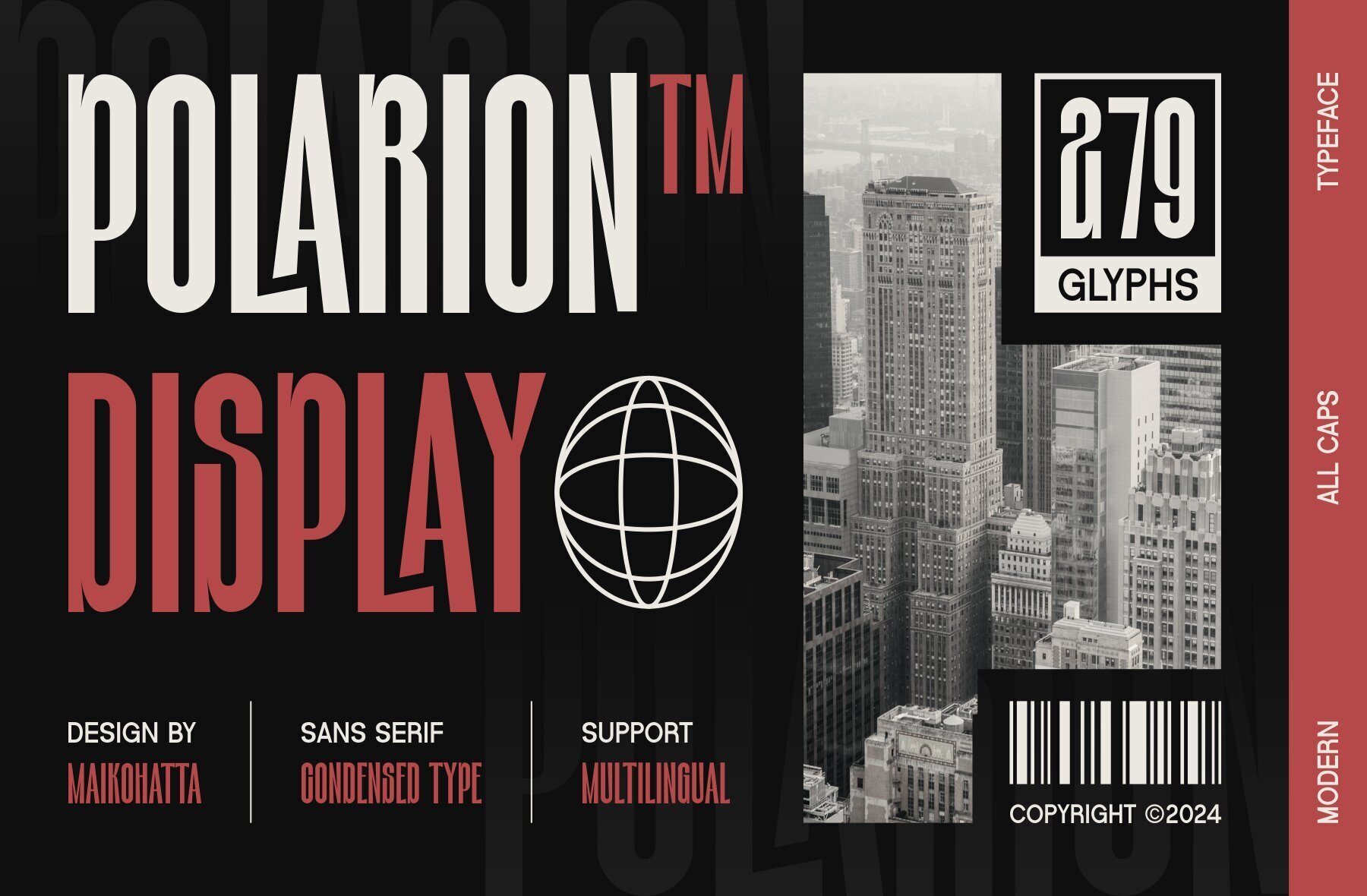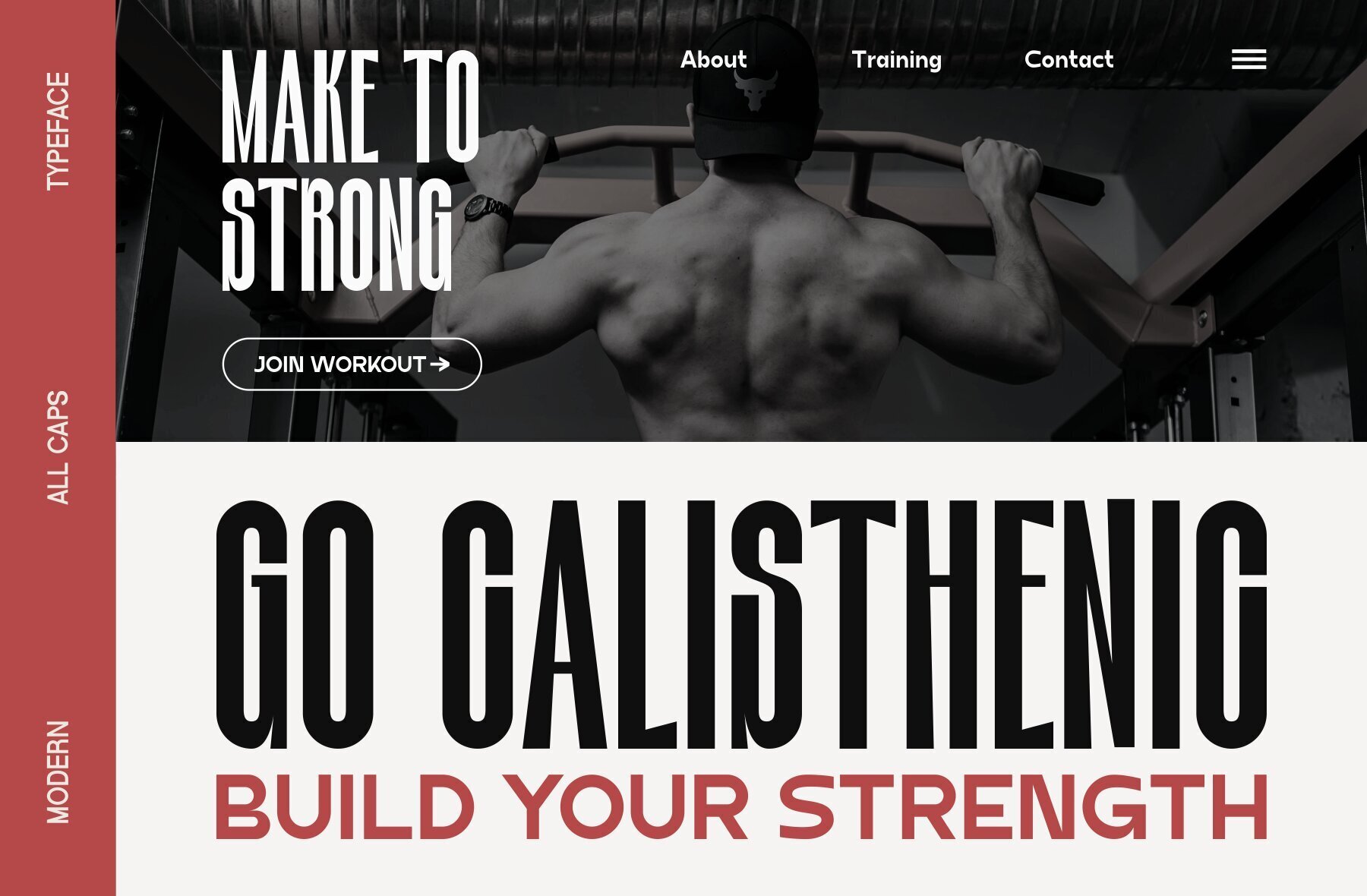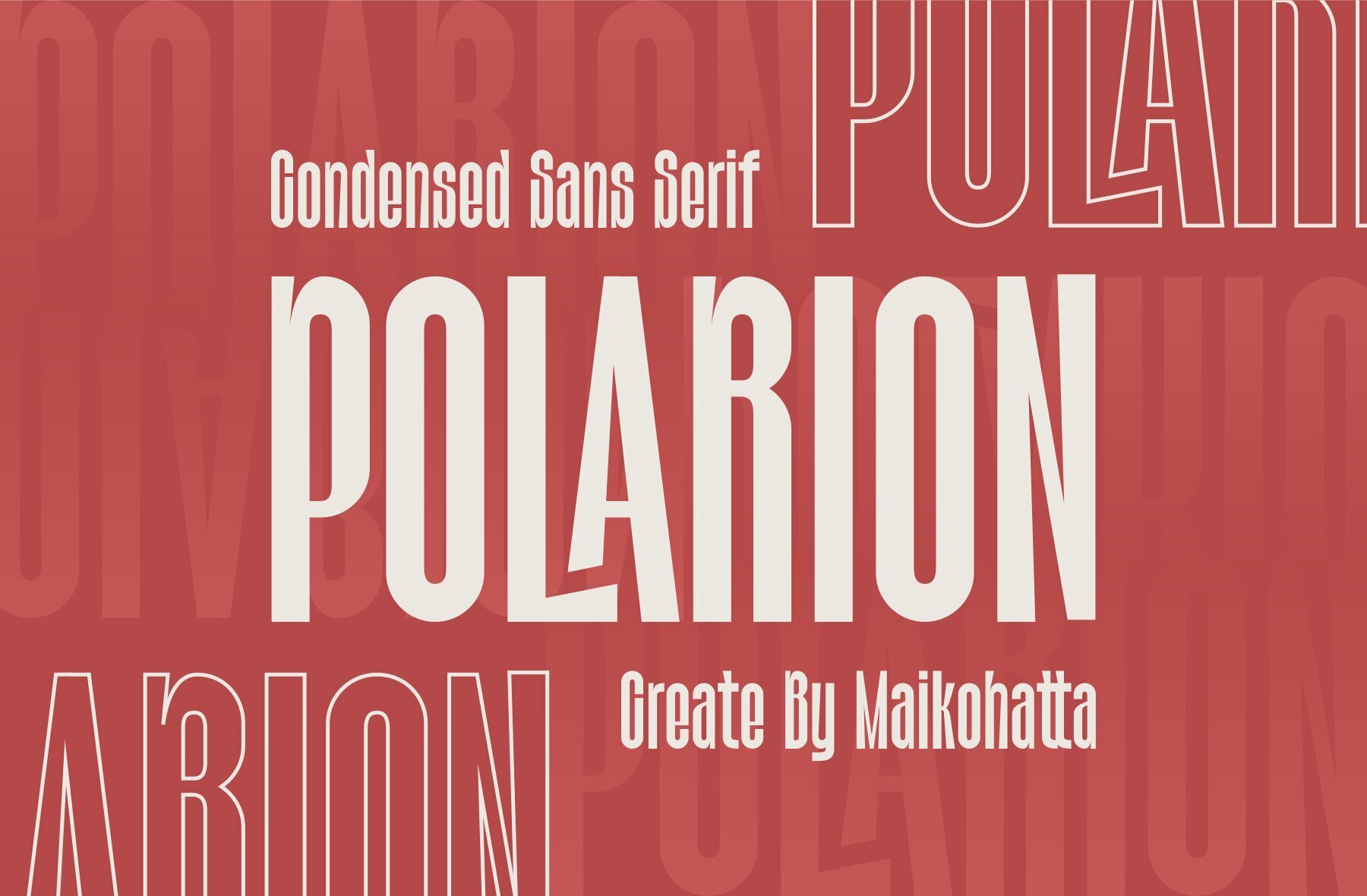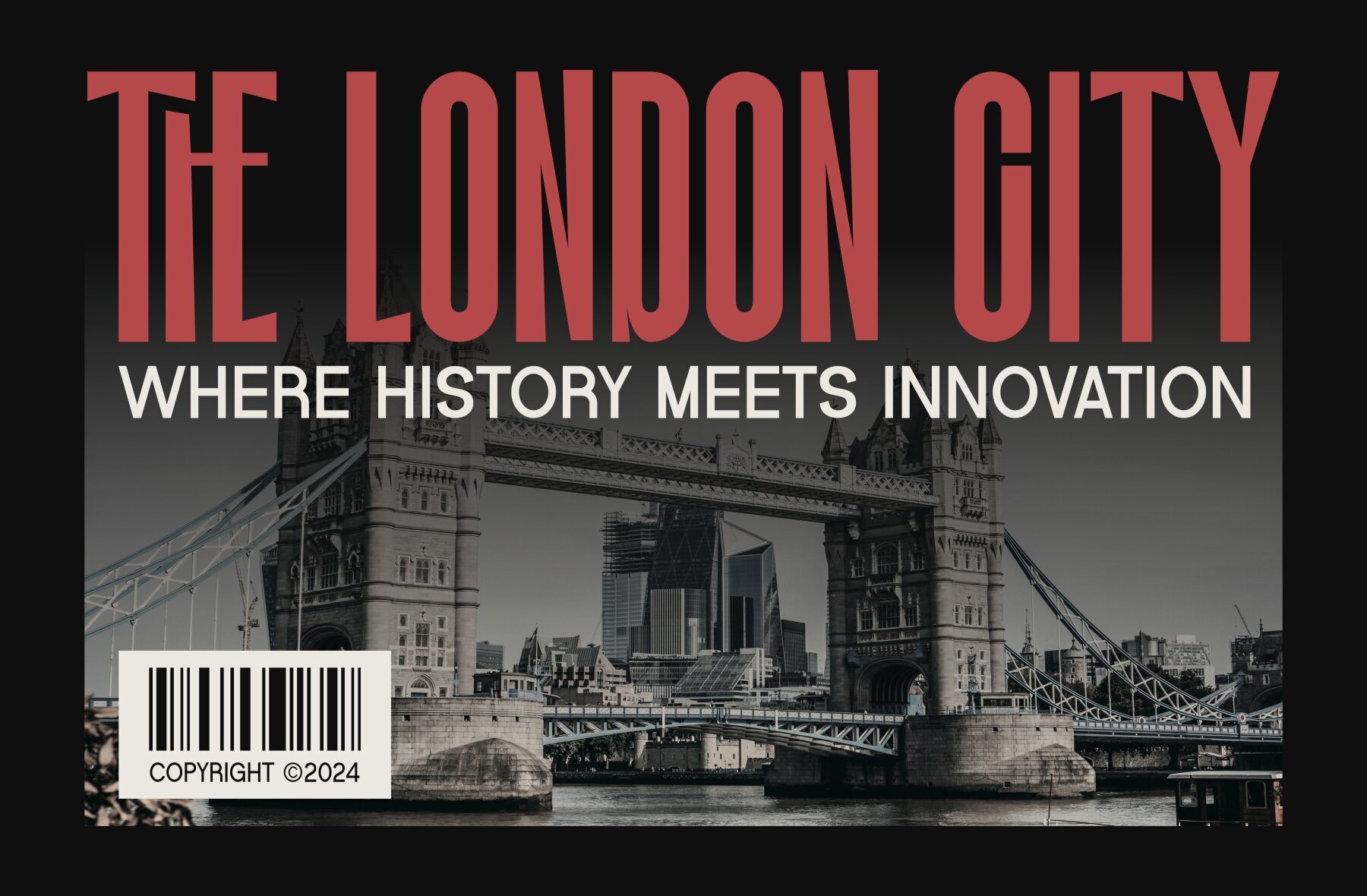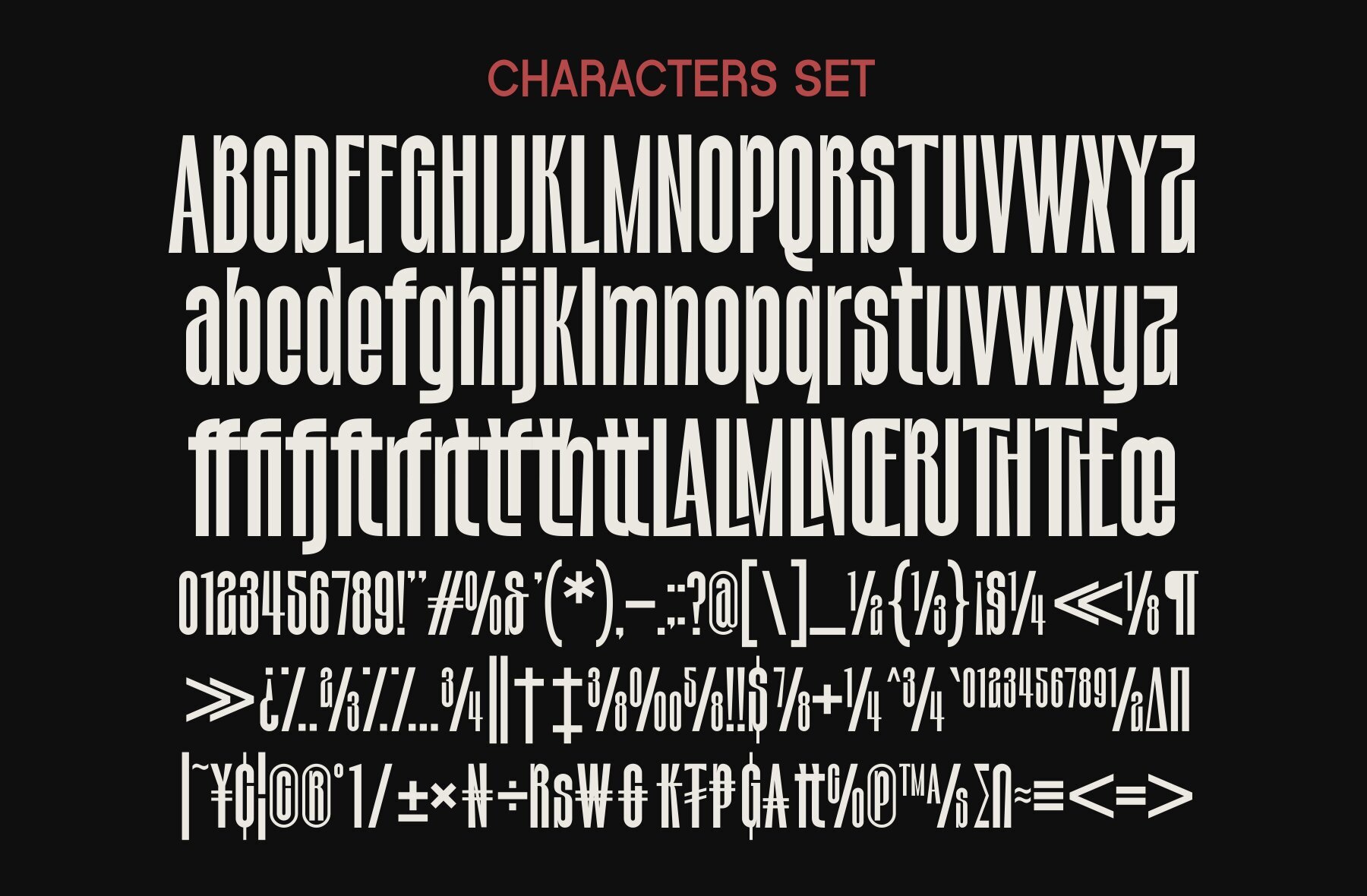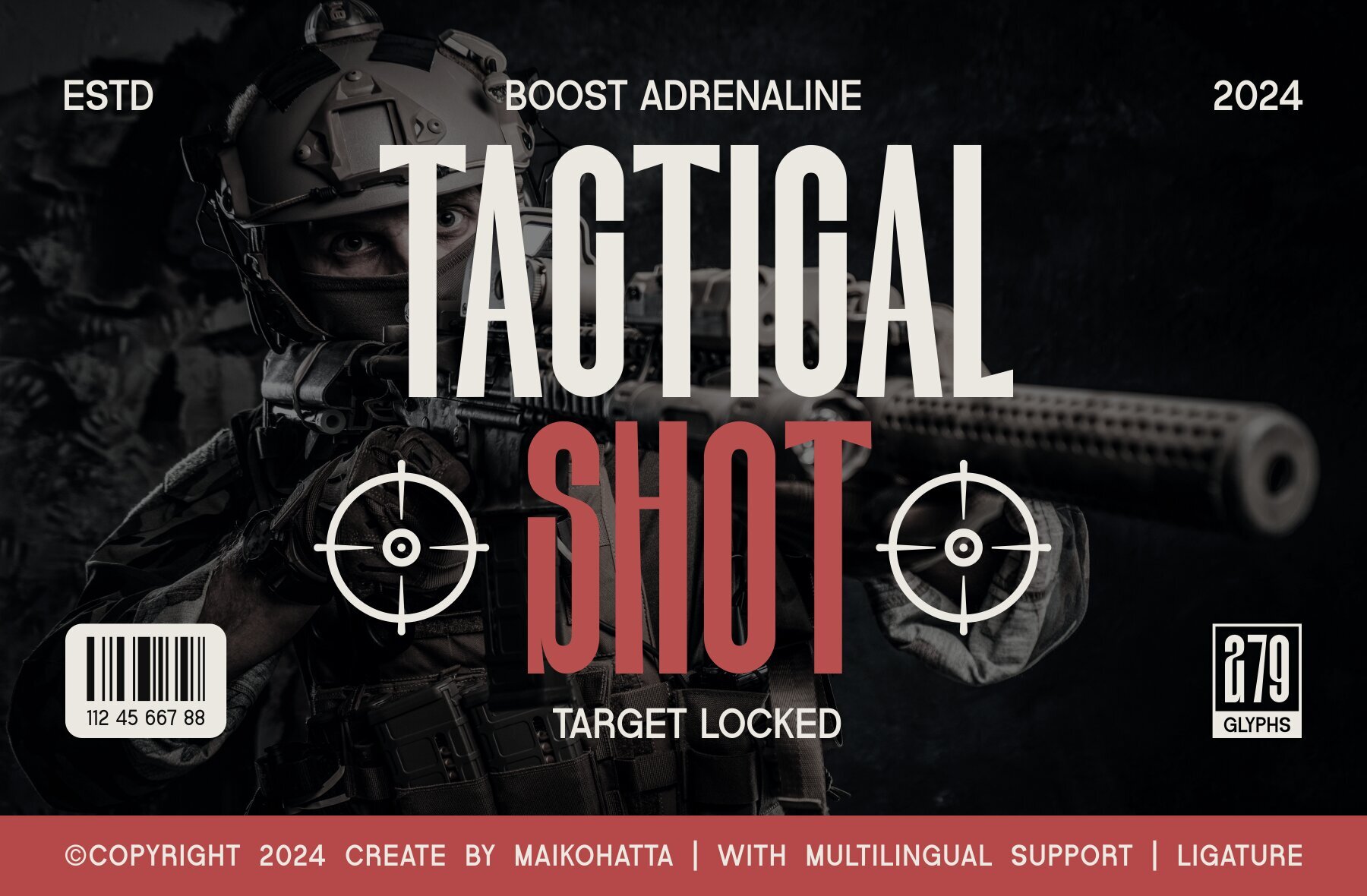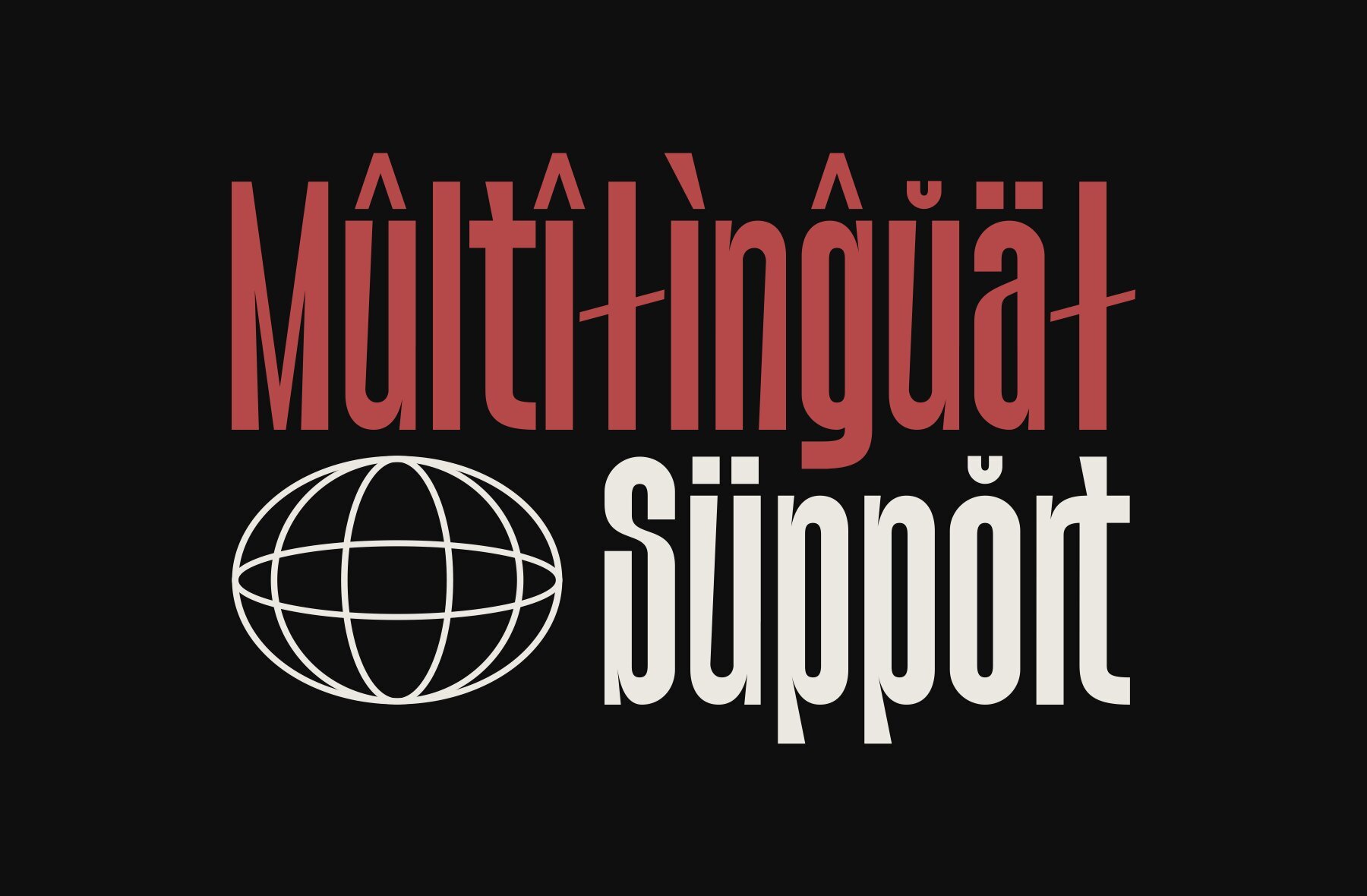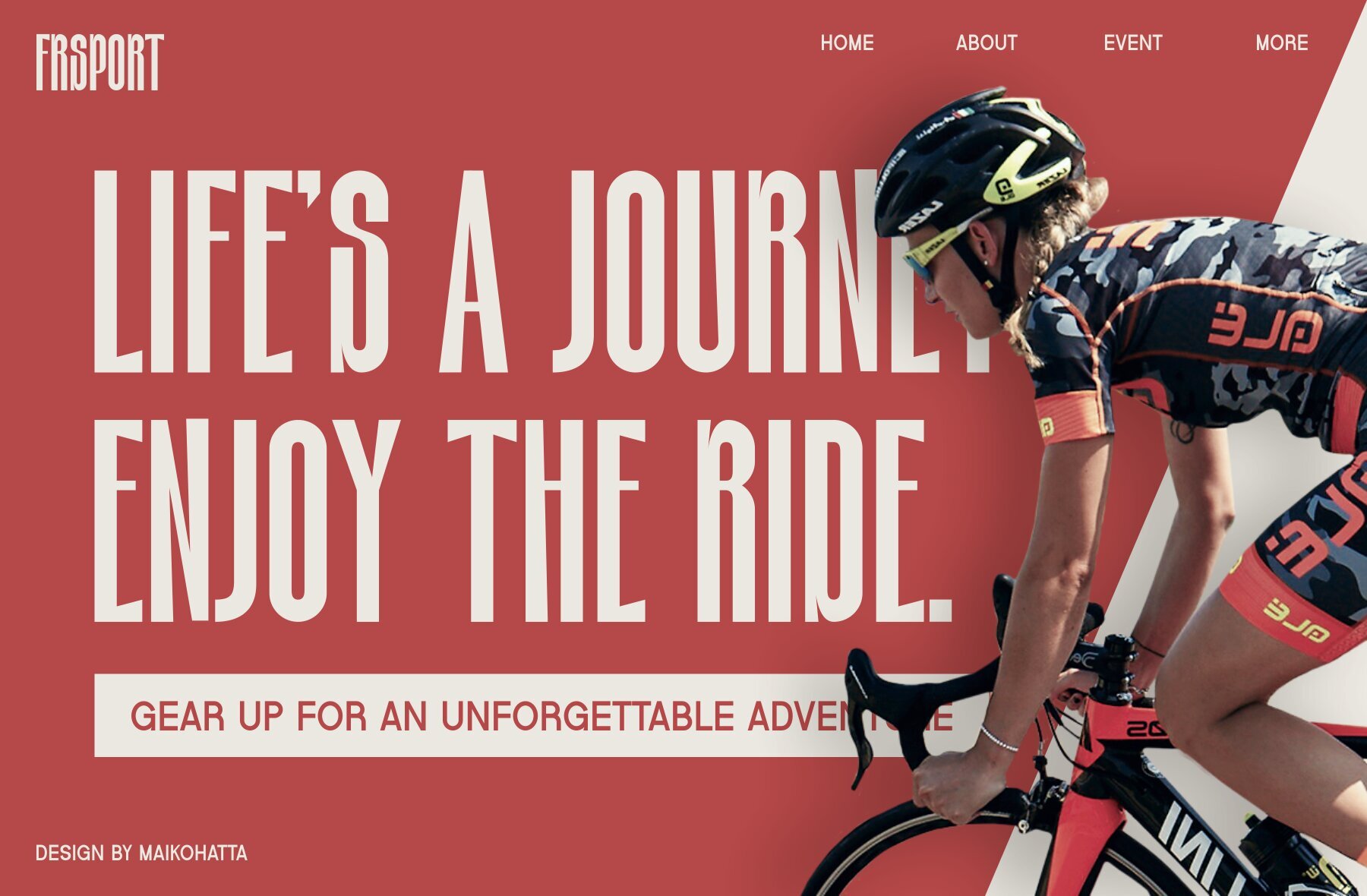
Polarion Font
Polarion is a meticulously crafted sans serif display font that balances elegance with sharpness. Each letter showcases precise proportions and alignment, making it ideal for various applications, including print design, promotional materials, and magazine layouts.Polarion: Elegant Sans Serif Display Font